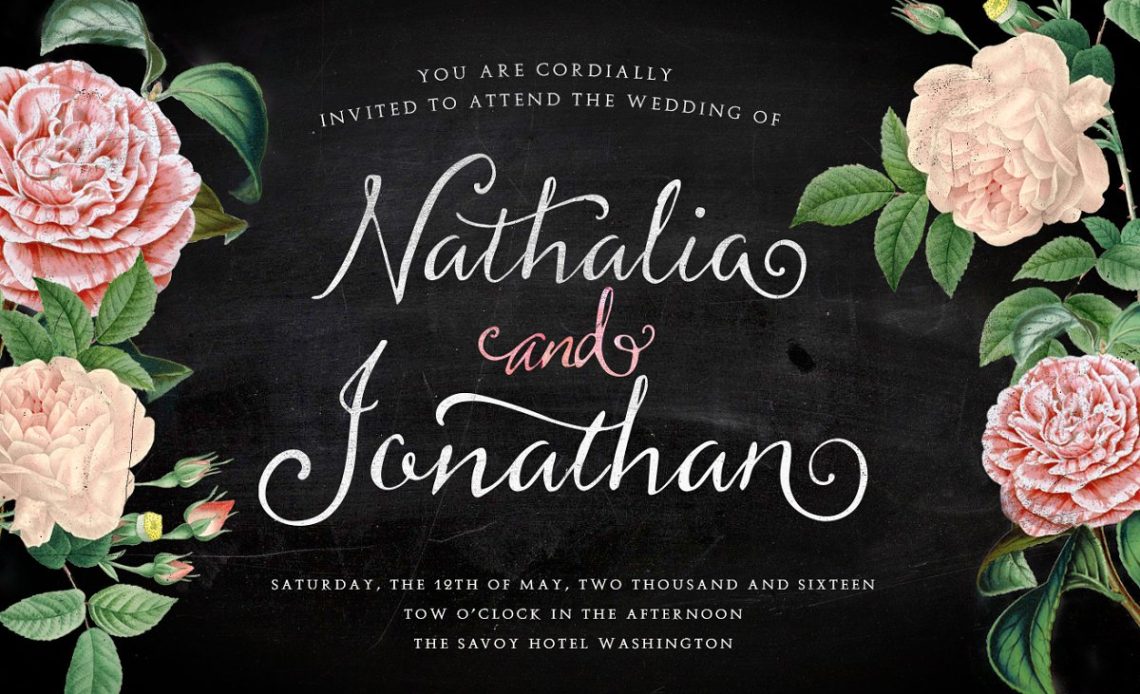
Looking for the perfect font for your wedding invitations? Look no further than Butterscotch Typeface! Created by the talented Nicky Laatz, this script font is not only versatile but also incredibly adventurous. With Butterscotch, the possibilities are endless, and you'll have so much fun exploring all the creative ways to use it.
Butterscotch Typeface is a beautifully organic, hand-lettered script font that has been carefully crafted and digitized into an elegant yet 'inky' typeface. It includes both standard uppercase and lowercase characters, including accented letters. You can also find alternative characters for both uppercase and lowercase letters, allowing you to add a unique touch to every word.
Butterscotch doesn't stop there - it also comes with a variety of decorative ornaments, such as gorgeous swishes, curls, and twirls, to help you finish off your typographical masterpieces. Additionally, there are 50 extra elements, including inky, hand-drawn catchwords, ampersands, and banners. The font also comes with handy reference documents for all the extra characters and glyphs.
This font is perfect for a variety of projects. From greeting cards and wedding invitations to typographical posters, insignia, and apparel designs, Butterscotch will bring a touch of elegance and uniqueness to your creations. It's also great for individual and unique branding, logos, hand-lettered envelope addressing, and personalized stamps.